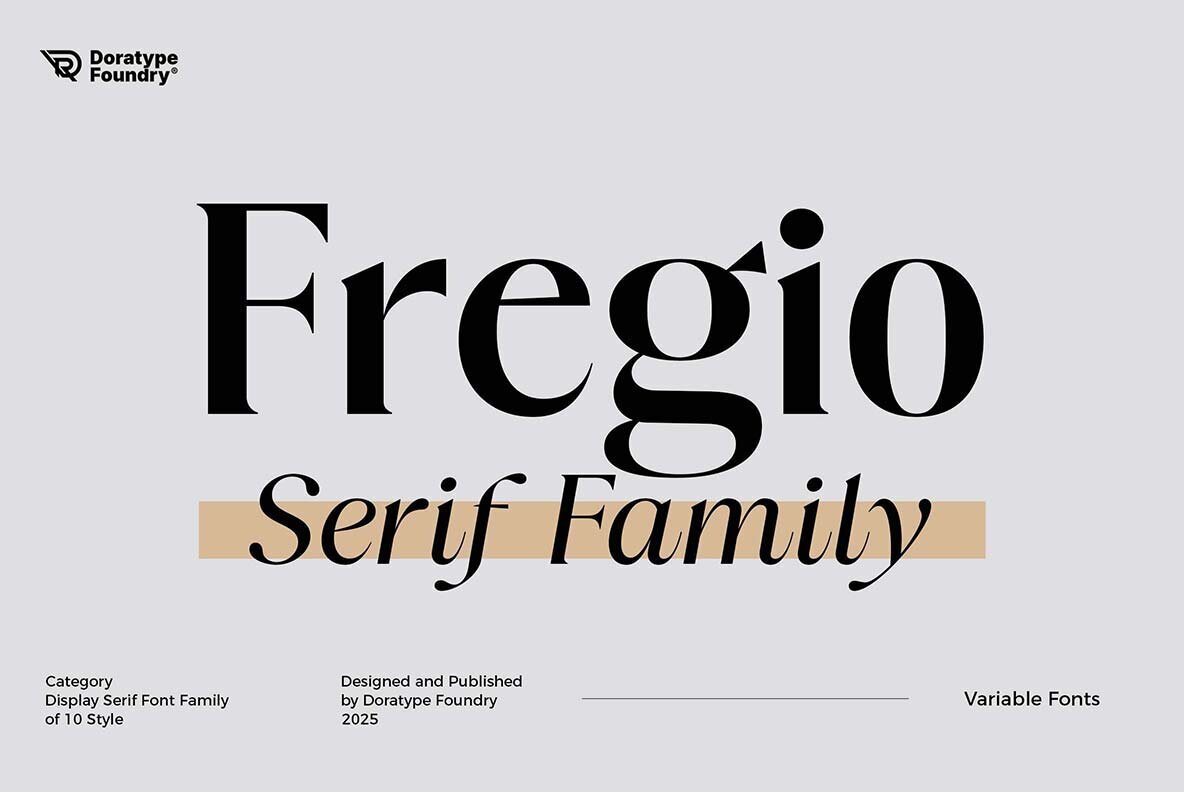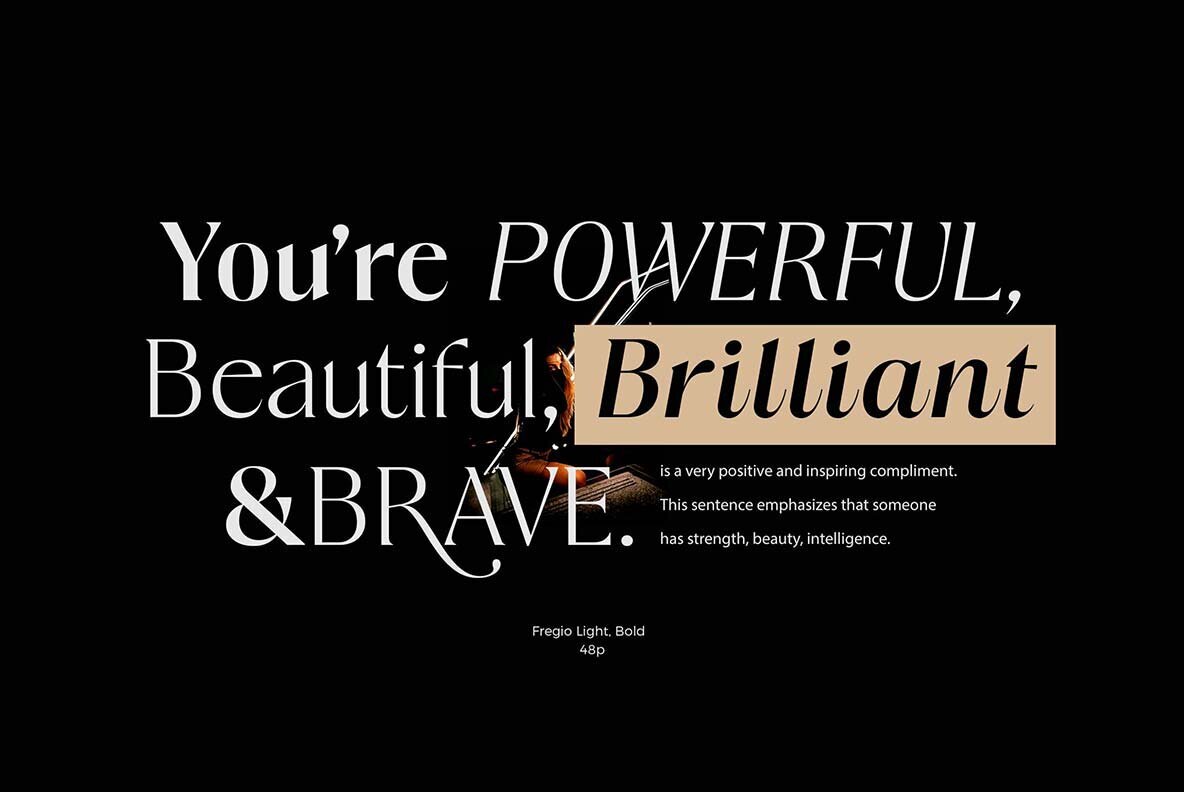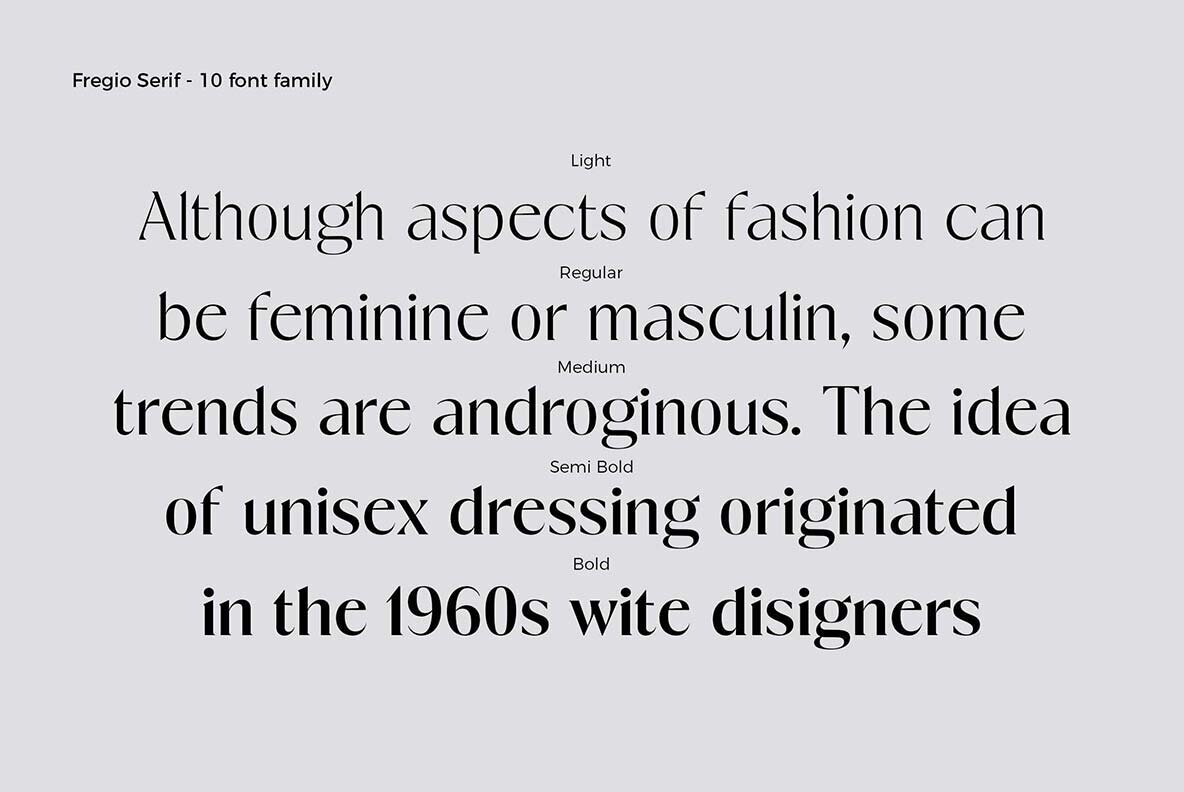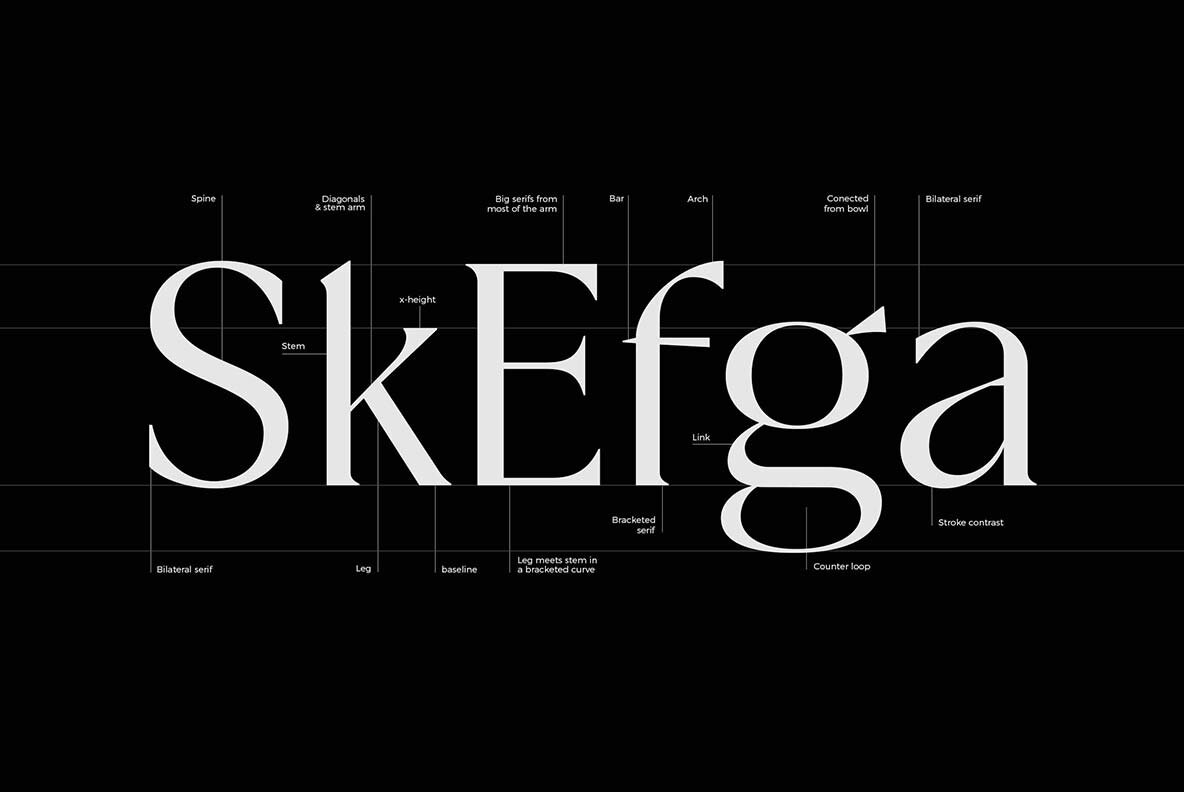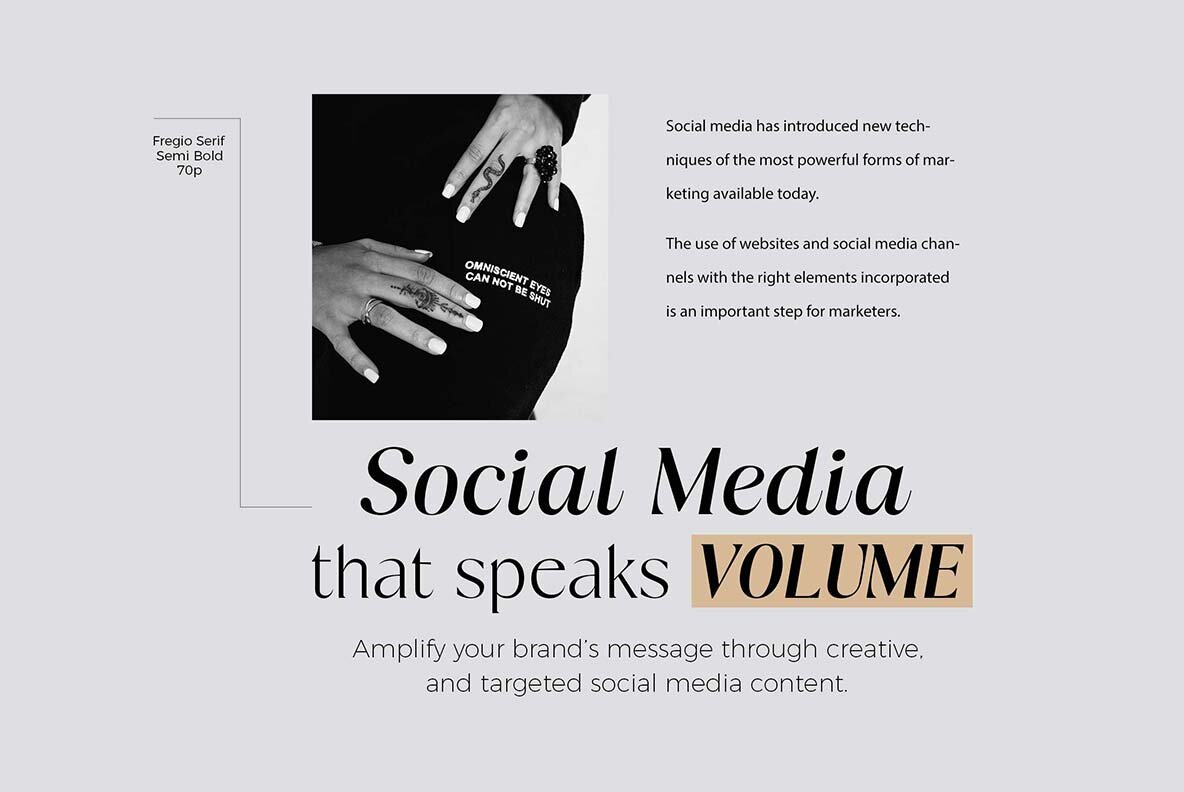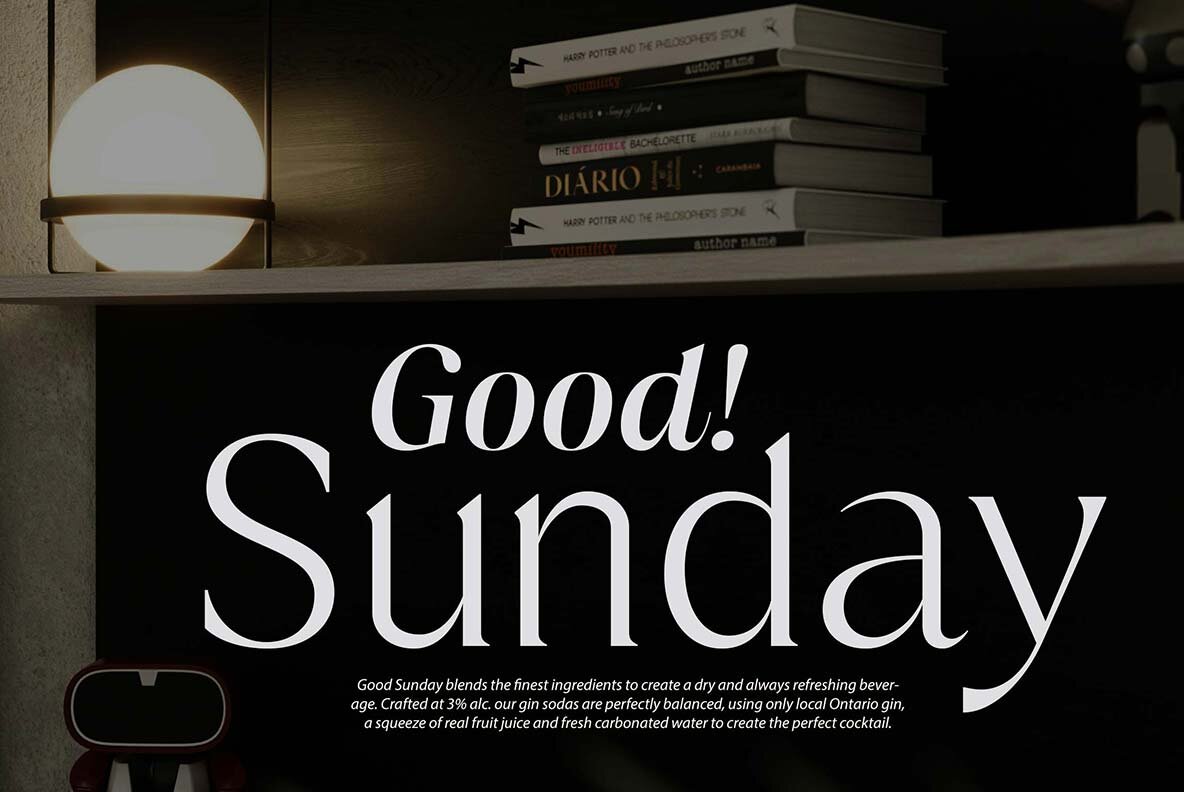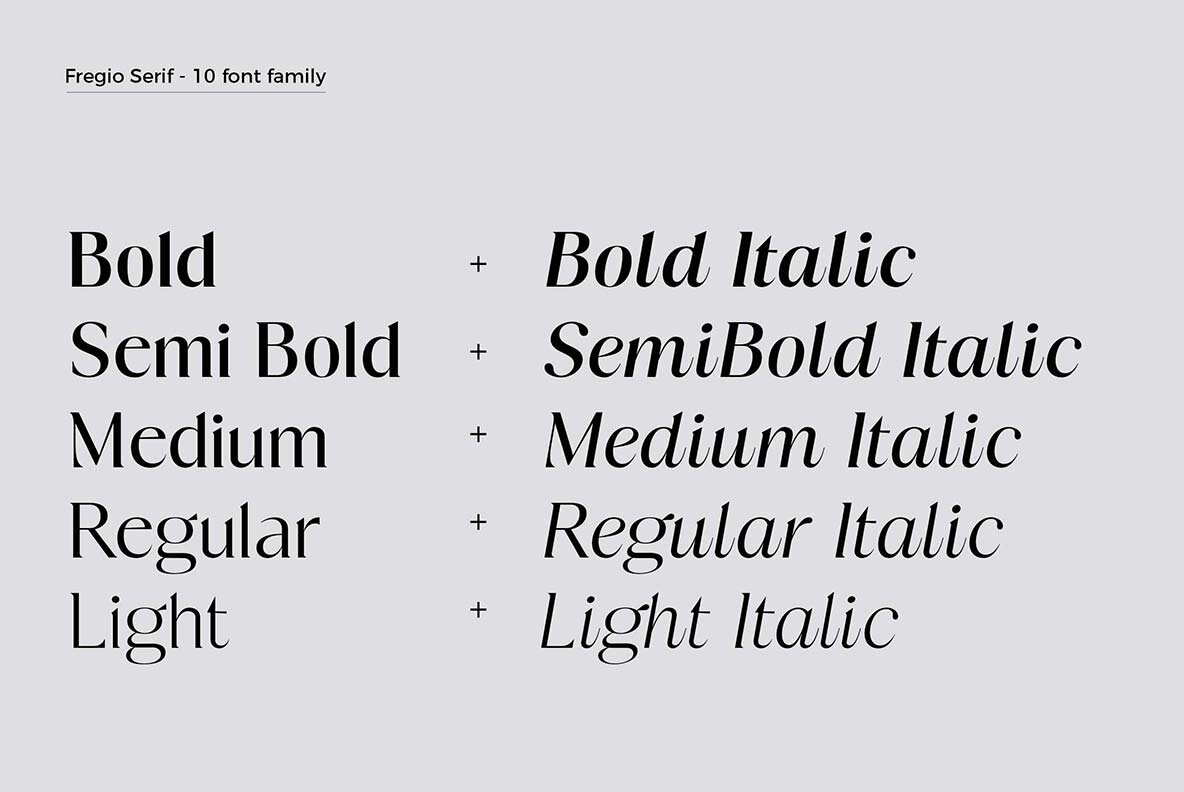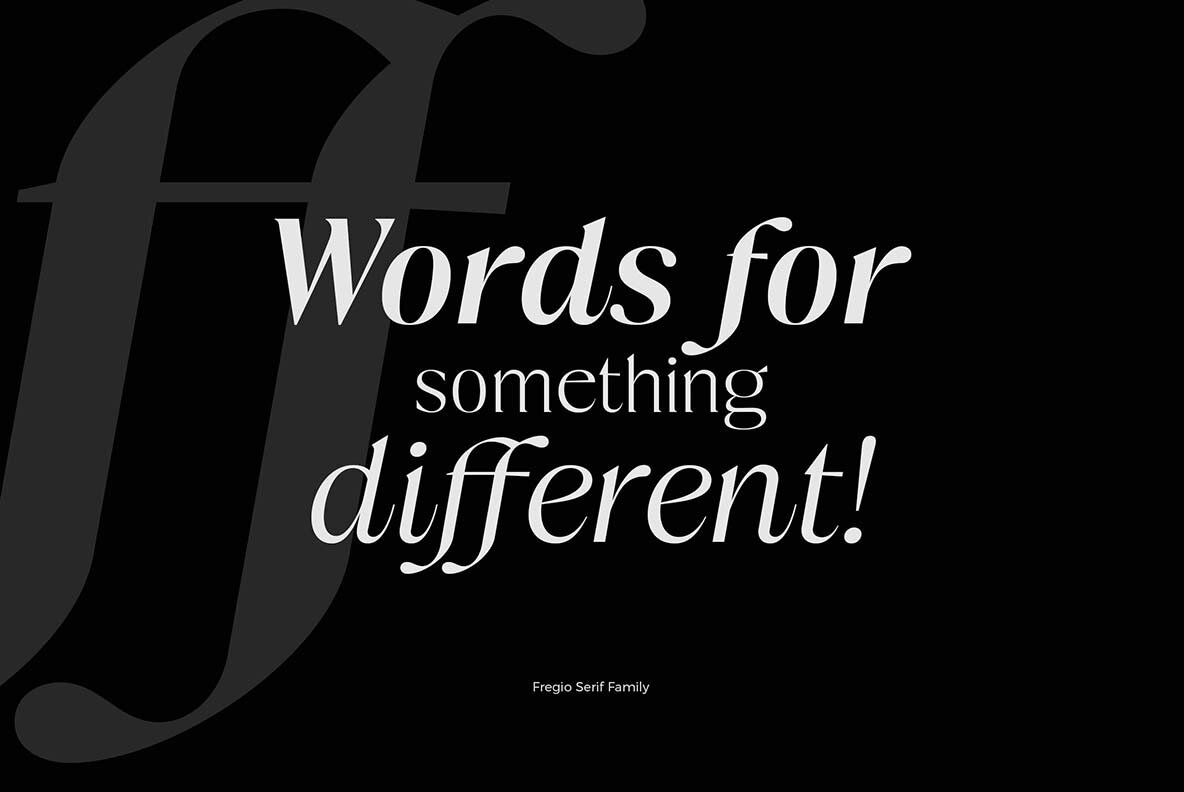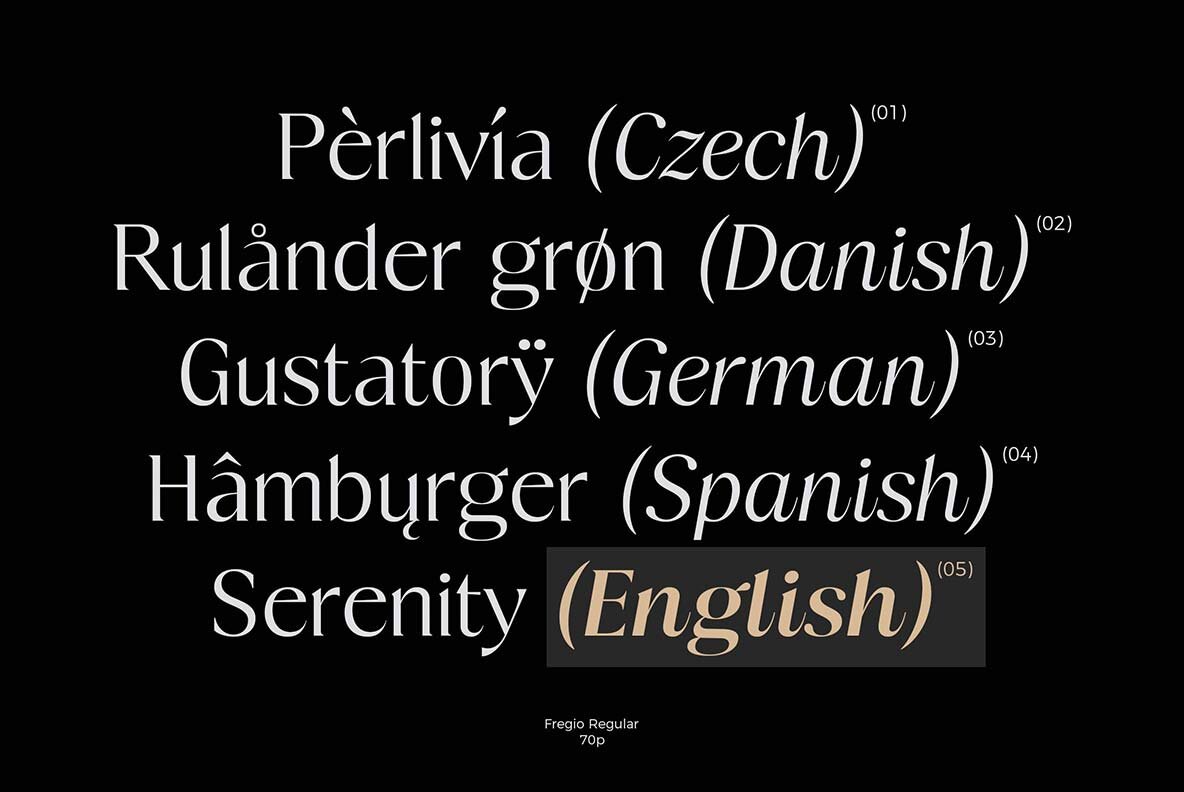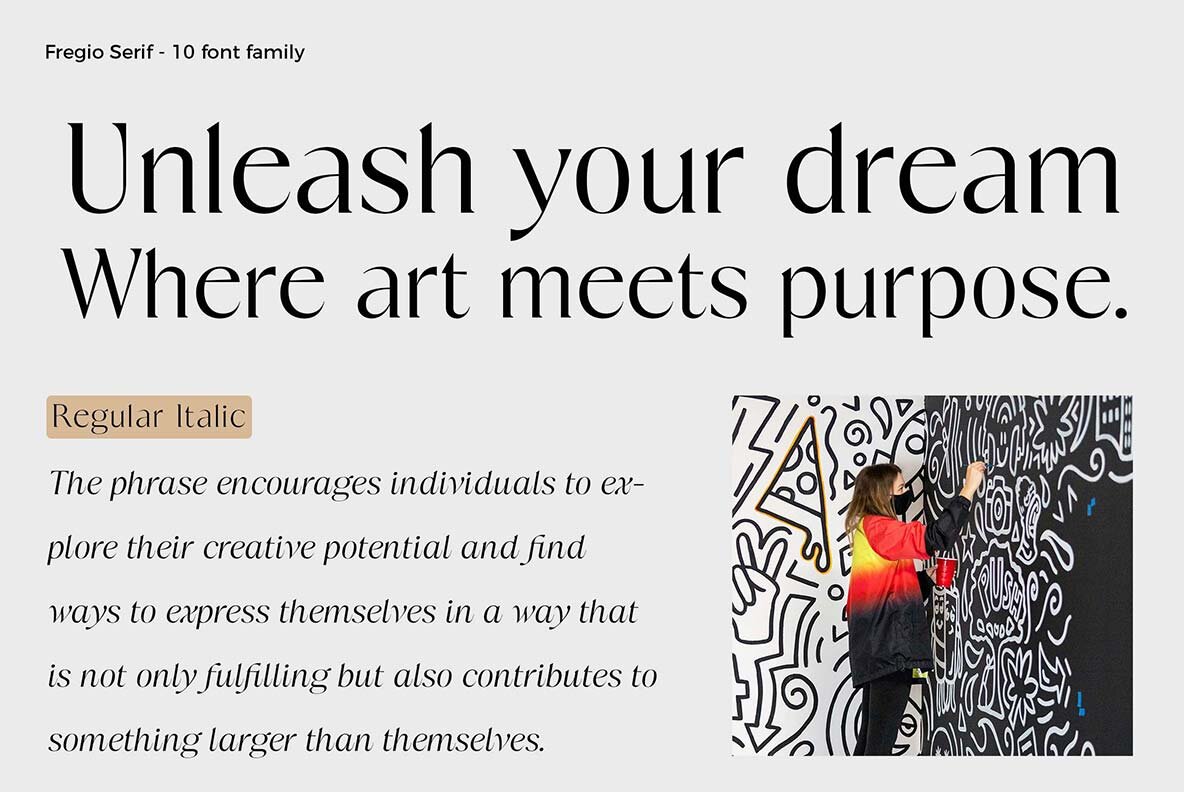
Fregio Font
The Fregio font is a sophisticated display serif, marked by its luxurious and timeless appeal. Crafted by Doratype Foundry, this font family features a harmonious balance of thick and thin contrasts, creating a striking visual impact. Its letterforms are defined by sharp serif tips and gentle curves, making it an excellent choice for editorial projects, luxury branding, and bold graphic designs. Published in 2025, Fregio exemplifies modern serif character with an artistic finesse. The collection boasts 10 meticulously varied styles and offers the flexibility of variable font format, allowing for a broad range of design possibilities.Fregio: Elegant Serif Font With Classic Details